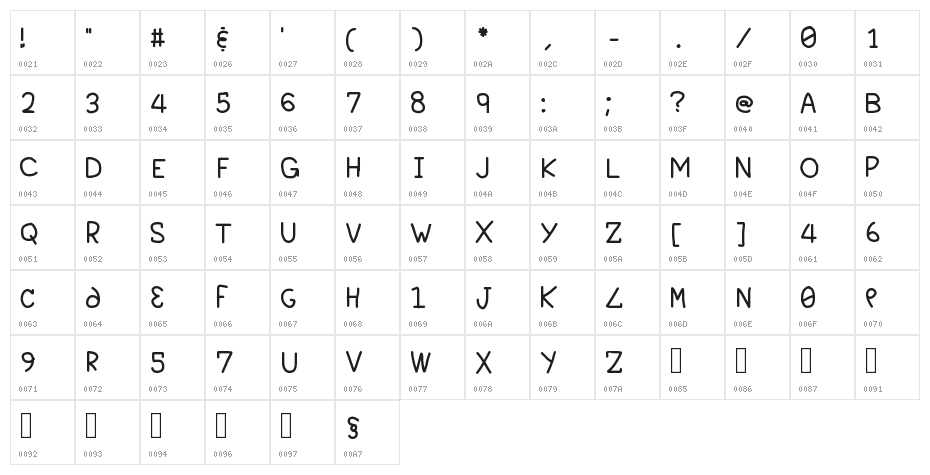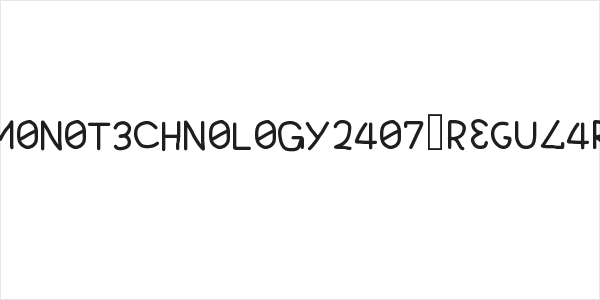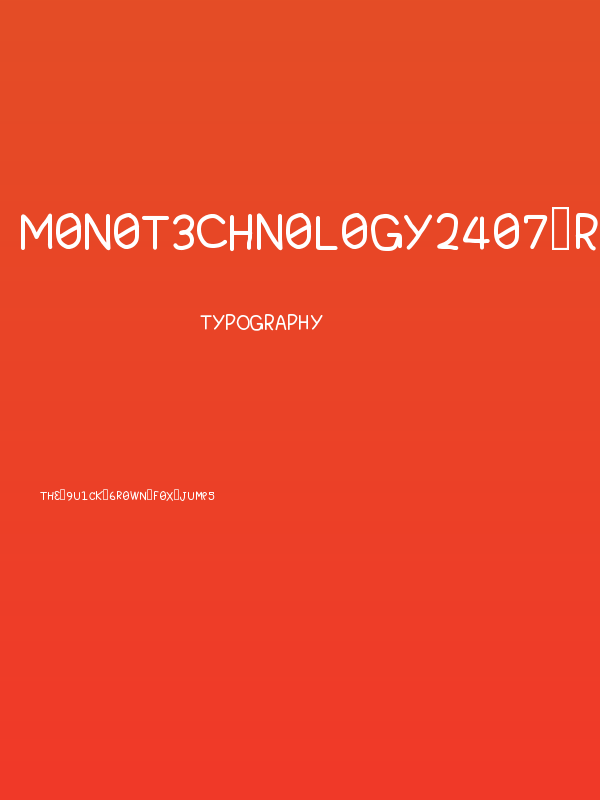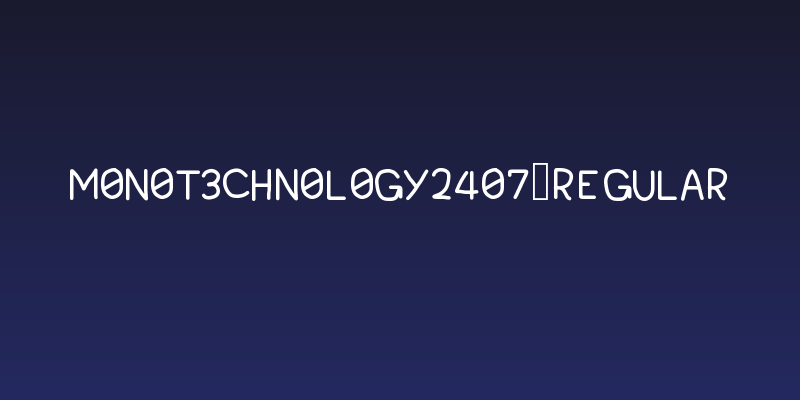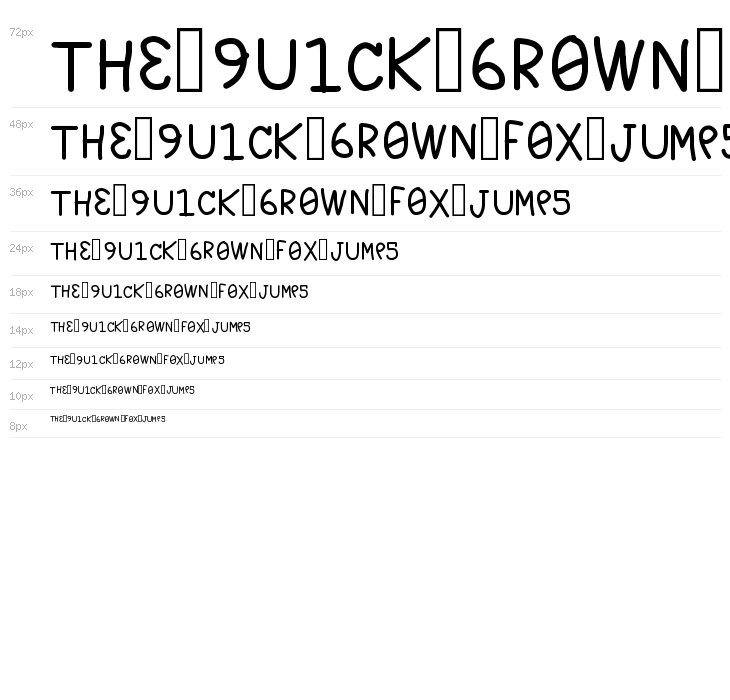
M0N0T3CHN0L0GY2407 Regular Font
M0N0T3CHN0L0GY2407 Regular Description
This font features a modern, technological aesthetic with a monospaced design. Each character is uniformly spaced, giving it a structured and organized appearance. The letters are rounded with a slight geometric influence, creating a clean and futuristic look. The numbers and special characters maintain the same style, ensuring consistency across all elements. The font's simplicity and clarity make it suitable for digital displays and technical documentation.
Use CaseDigital displays, Technical documentation, Coding
Proposed ProjectsIdeal for coding environments, technical manuals, digital interfaces, and futuristic branding.